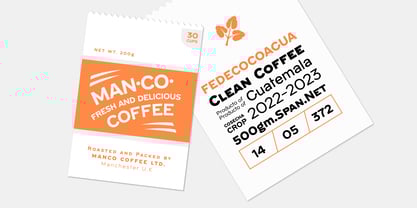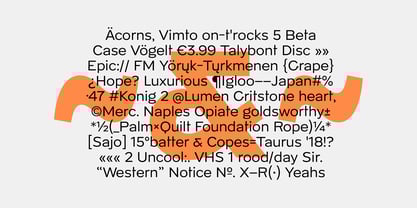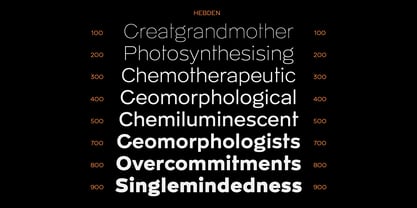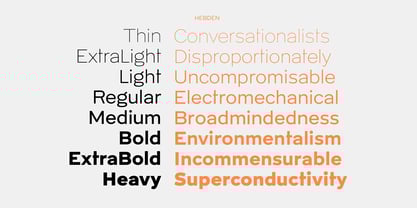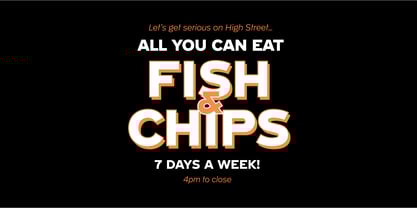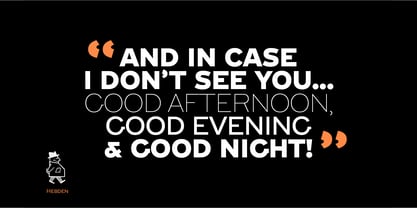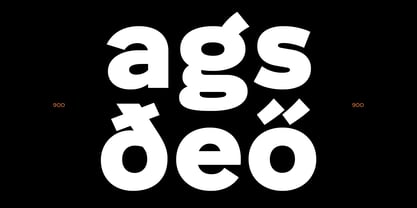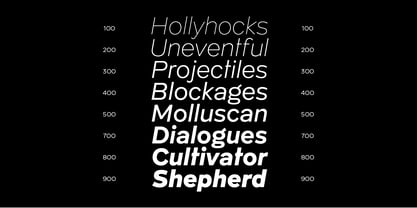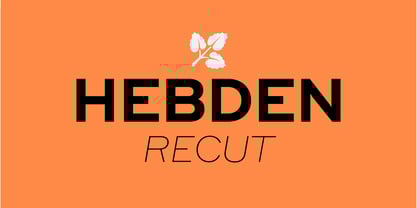
Hebden Recut
by Manchester Type Foundry
The Hebden Recut Font Family was designed by Lewis McGuffie, David Williams and published by Manchester Type Foundry. Hebden Recut contains 16 styles and family package options.
Hebden Recut is an expansion of Hebden the ‘Northern’ font. Inspired by the town Hebden Bridge in Yorkshire, the family is a mix of a hand-painted grotesque and Egyptian lettering. The uppercase is based on Victorian train station signage that can be spotted in and around the Yorkshire Dales region. The lowercase is inspired by 19th Century lettering manuals. Hebden has a nostalgic twist and is ideal for labelling, signage and memorable messages. The typeface face with its robust angles and warm circular curves recalls the style of traditional English sans-serifs like Caslon’s 2-Line Egyptian. The 'recast' family now spans 8 weights from Thin to Heavy and includes oblique styles for each weight. All styles now include small capitals and numerals, and an even wider range of Western, Central and Eastern European language support.